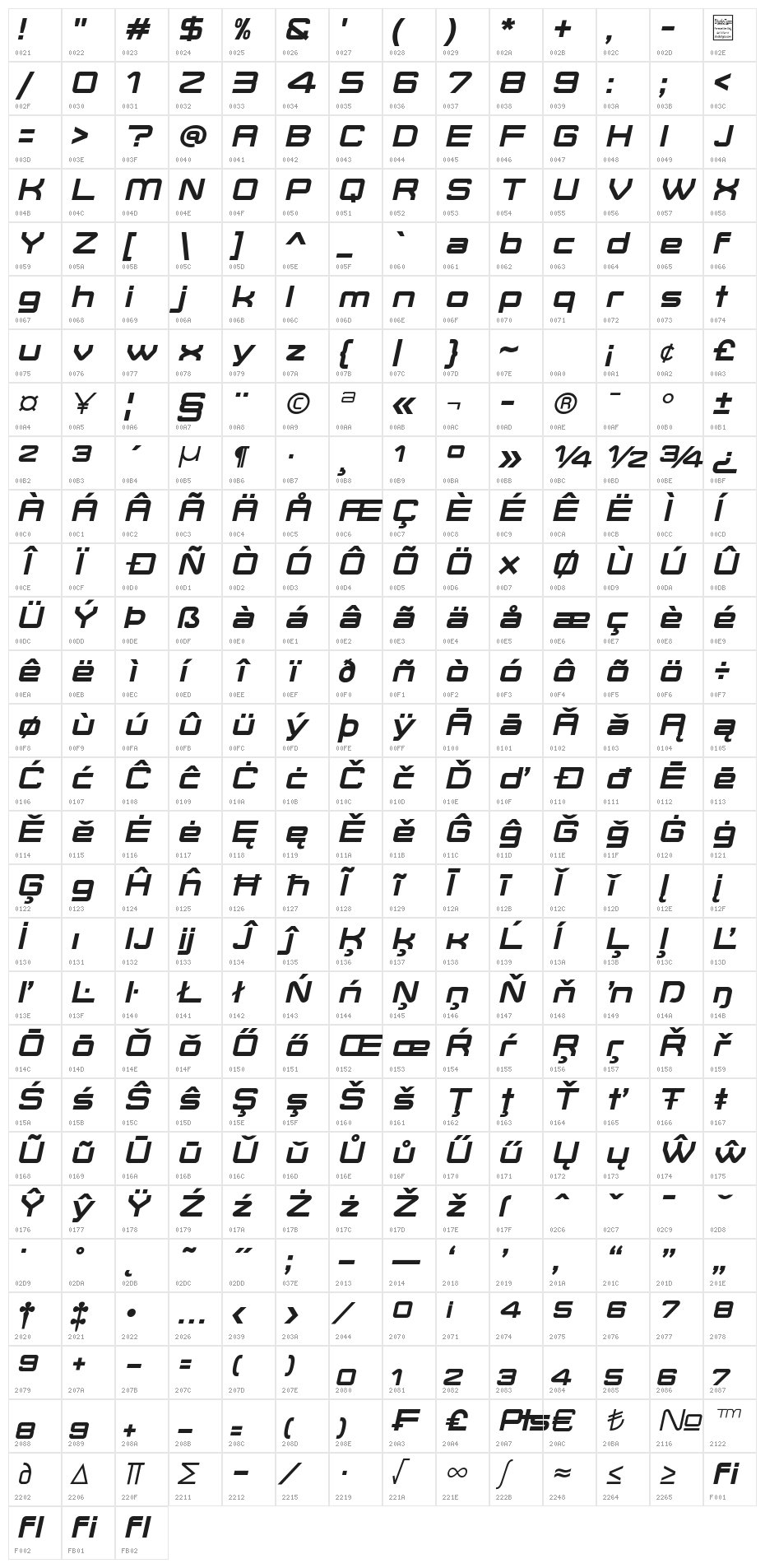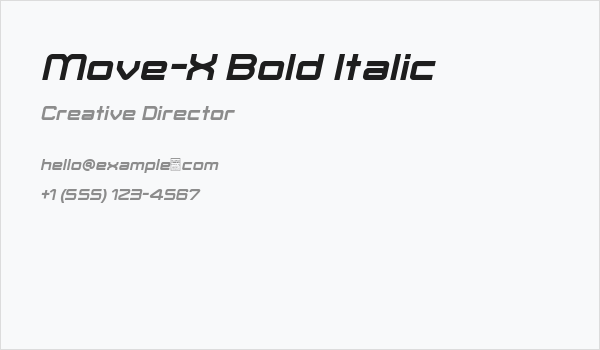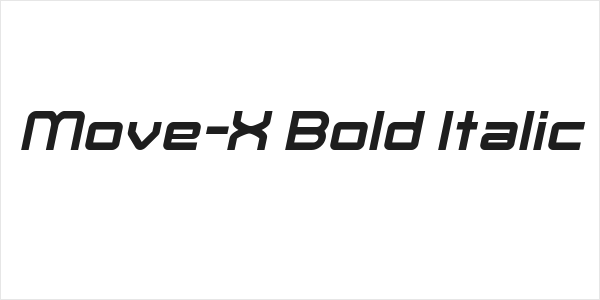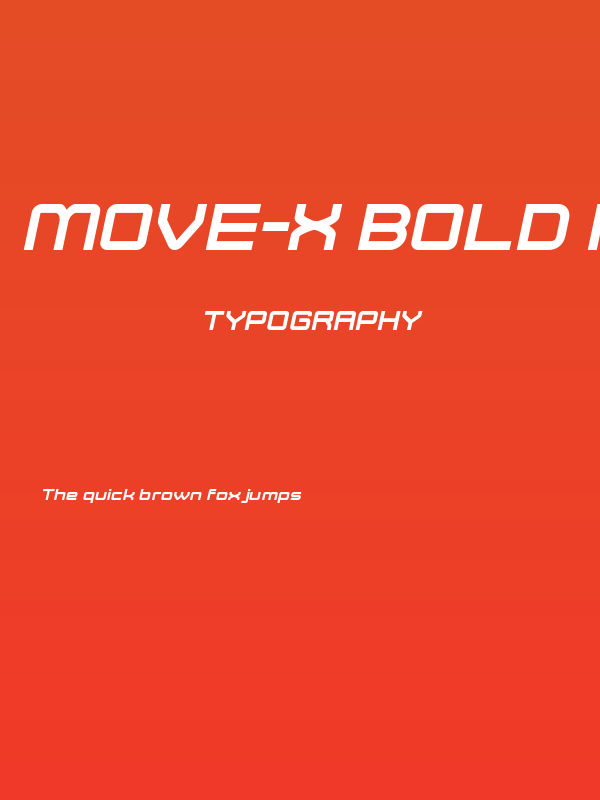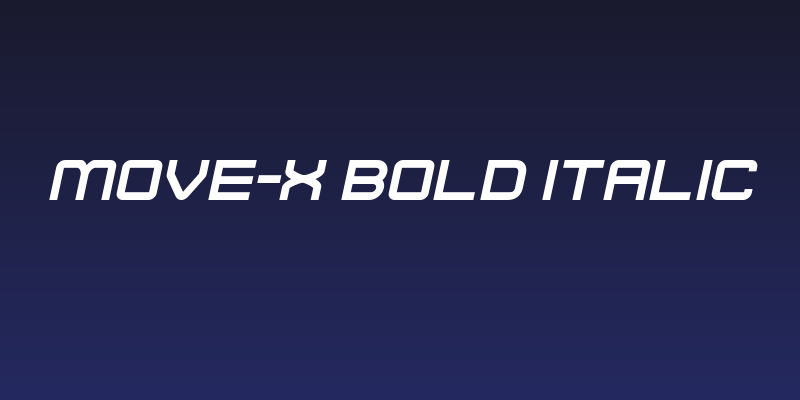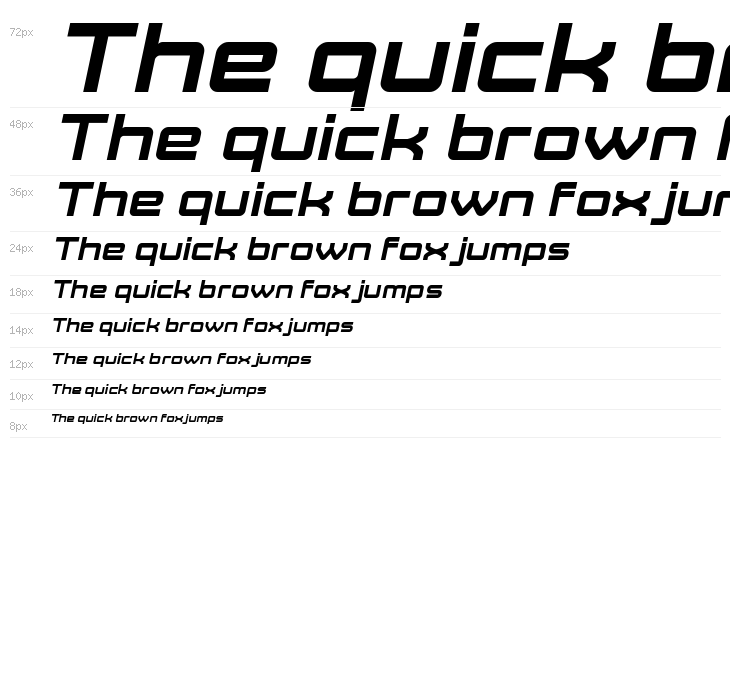
Move-X Bold Italic Font
Move-X Bold Italic Description
This font features a bold and italicized style with a modern and sleek appearance. The characters are slightly slanted, giving a dynamic and forward-moving impression. The strokes are consistent in weight, contributing to a uniform and cohesive look. The uppercase and lowercase letters maintain a geometric structure, with rounded edges that soften the overall appearance. The numerals are clear and legible, matching the style of the alphabetic characters. Special characters are included, maintaining the same bold and italicized characteristics, ensuring versatility in various design contexts.
| Proposed Projects | Ideal for sports branding, tech company logos, dynamic posters, and modern web design. |